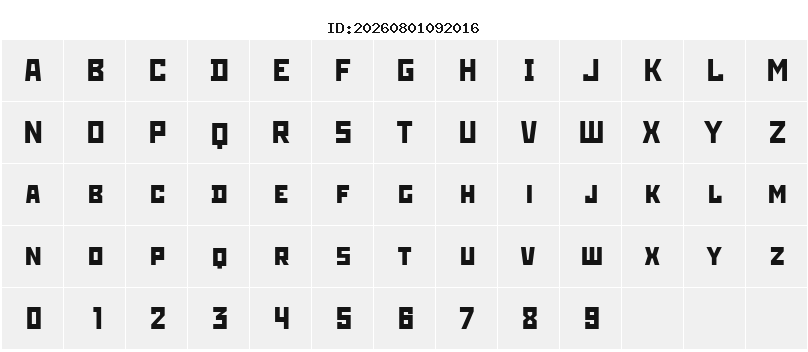
• Font Name: LIFAD
• Manufacturer: ParaType, Inc
• Description: Designed at ParaType in 1996-2002 (designer Tagir Safayev). Inspired by works of Russian Constructivists of the 1920s and 30s: Alexander Rodchenko, Varvara Stepanova, Vladimir and George Stenberg, Gustav Klutsis and others. A geometrical, caps and small caps only, sans serif design. The glyphs are formed using straight lines only. Totally simplifyed, this face is symbolic of Russian Avant Garde. For use in advertising and display typography.